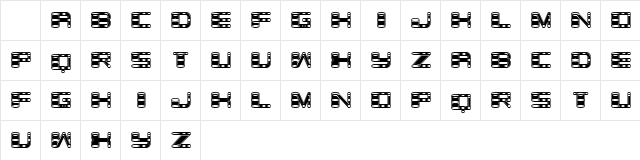
Complete Zylinder Inverted Regular glyph index. Displaying only characters natively supported by Zylinder Inverted Regular font.
Zylinder Inverted is a composed and adaptable typeface that performs quietly and consistently across a wide range of design contexts.